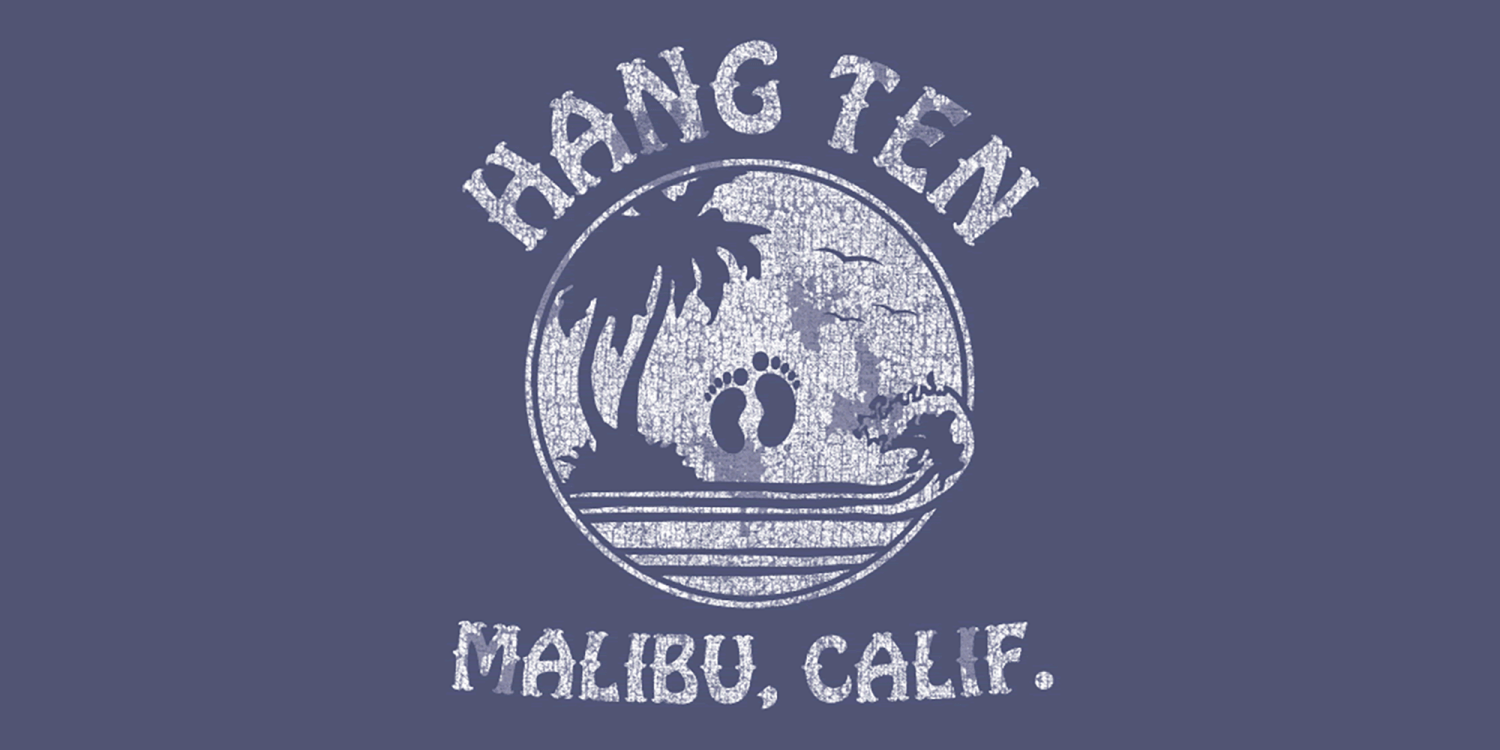
Malibu
About Malibu
Everybody loves a good vintage t-shirt. I've been designing t-shirts almost as long as I've been designing fonts, so over the years I've picked up a few secrets of the trade. Here's one: for some reason, skulls on tees never go out of…